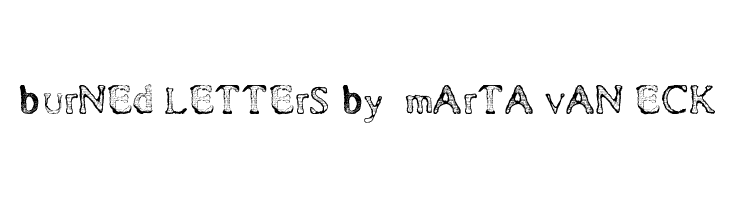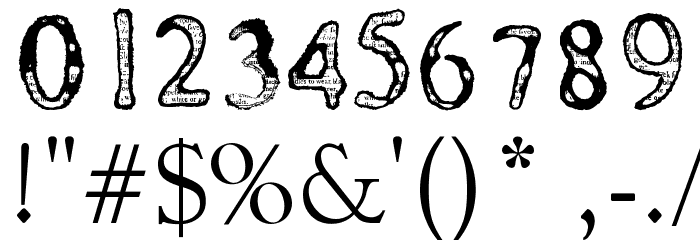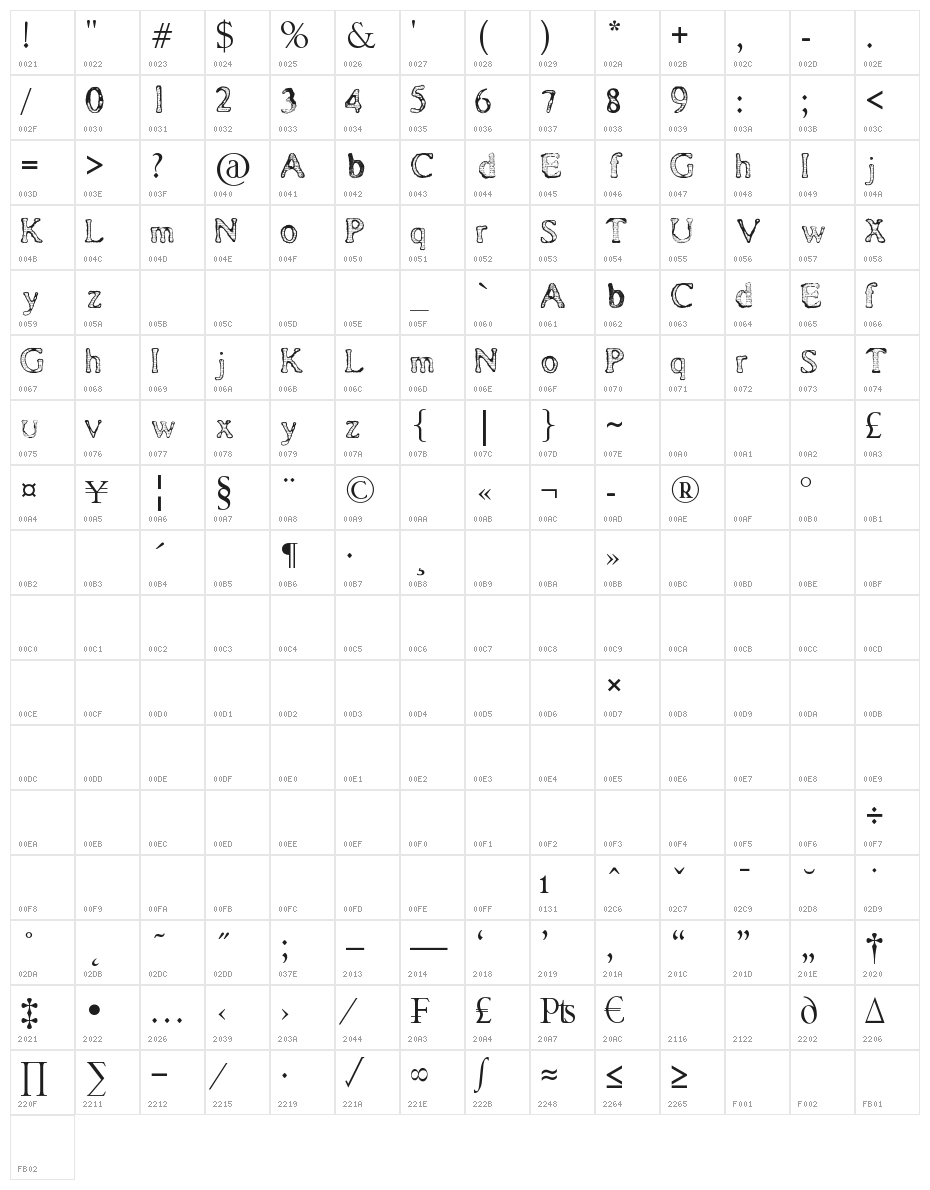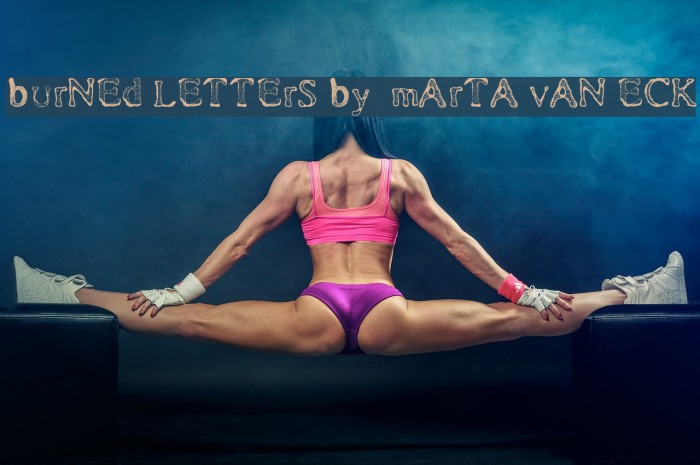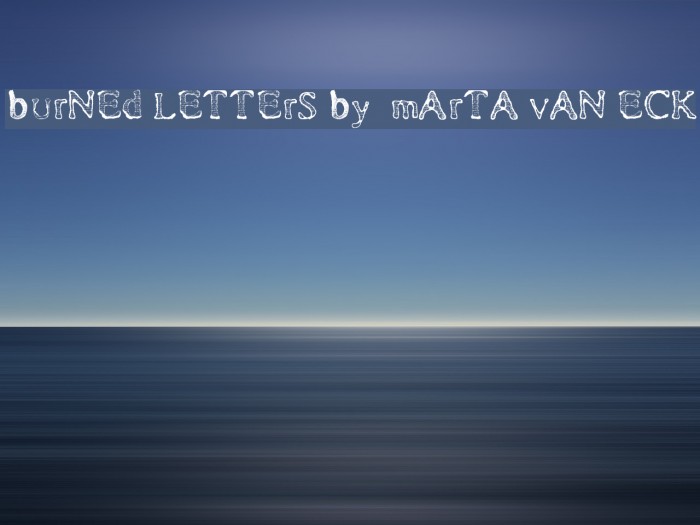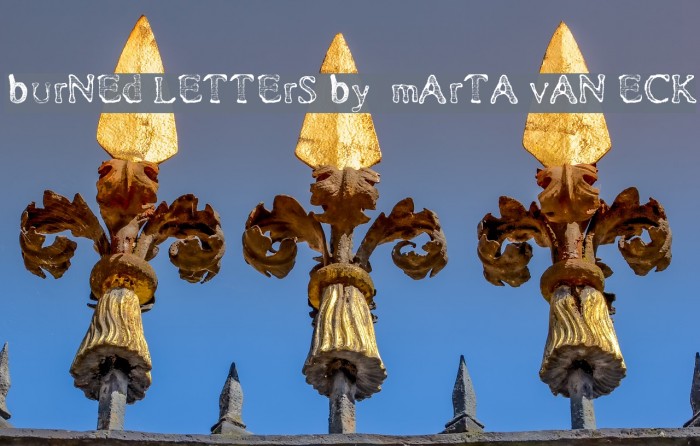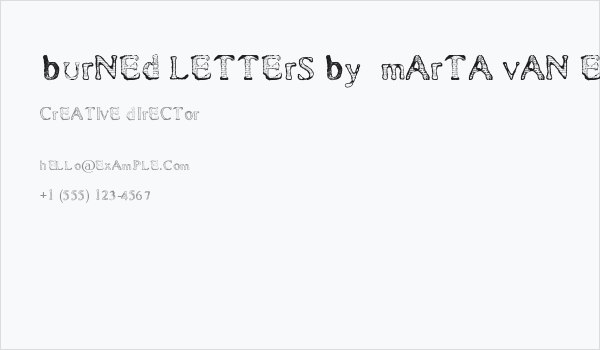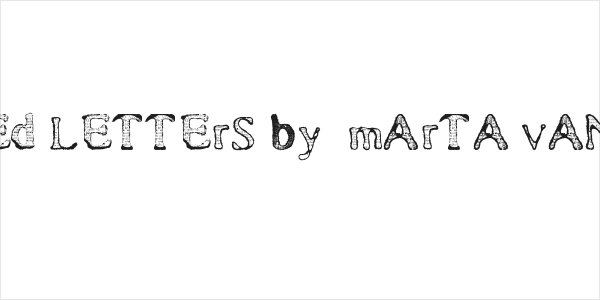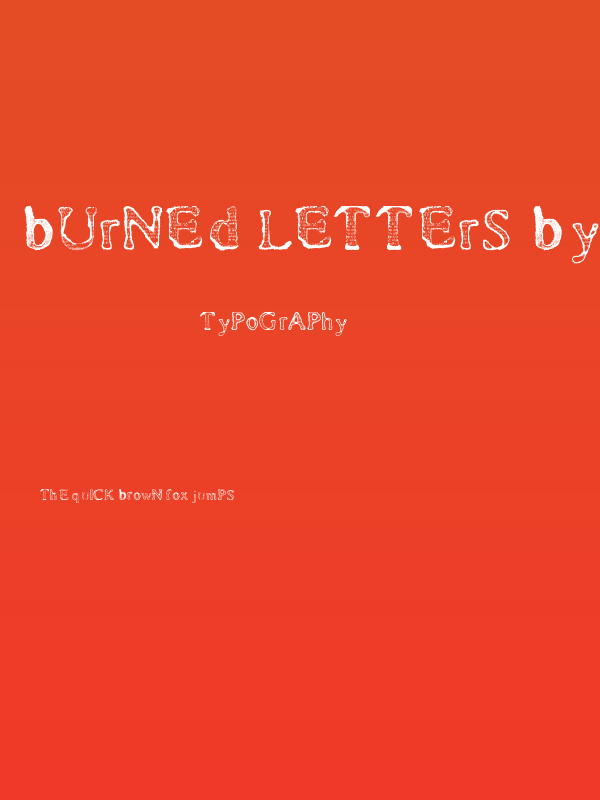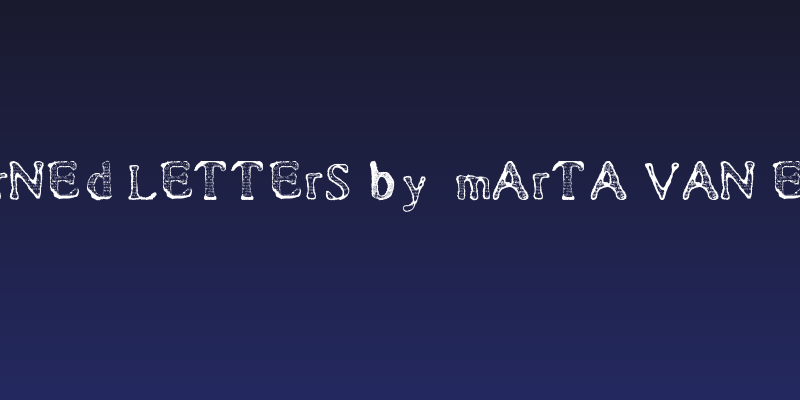
Burned Letters by Marta van Eck Font
Burned Letters by Marta van Eck Description
This font features a unique, distressed appearance, reminiscent of letters that have been burned or charred. The characters have an irregular, textured edge that gives them a rugged and organic feel. The style is bold and eye-catching, with a handcrafted quality that adds a sense of authenticity and rawness. The uppercase and lowercase letters maintain a consistent design, while the numbers and special characters complement the overall aesthetic. This font is perfect for projects that require a touch of grunge or a vintage, worn-out look.
| Overall Style | Vintage, Grunge |
| Proposed Projects | Ideal for posters, album covers, branding for rustic or vintage-themed products, and any design needing a grunge or distressed look. |